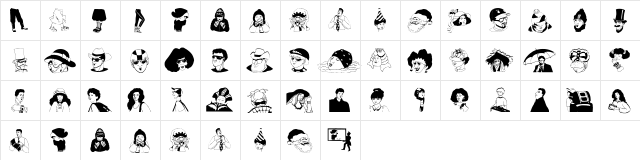
HeadsForYourAds Regular
Design Context for HeadsForYourAds Typeface
HeadsForYourAds is a composed and adaptable typeface that performs quietly and consistently across a wide range of design contexts.